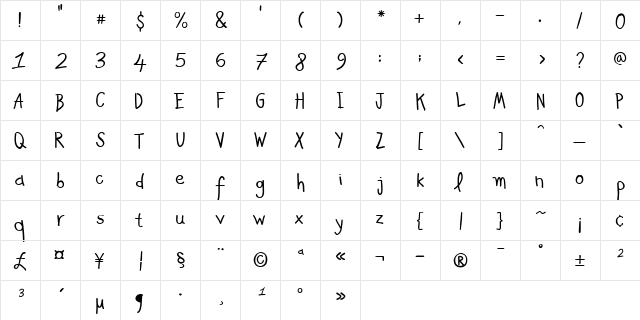
PF Kids Pro Grade Five Regular
Design Context for PF Kids Pro Grade Five Typeface
PF Kids Pro Grade Five has an approachable, lighthearted character — its loose, expressive forms are well-suited to children's content, casual branding, and fun-first design.
Well-suited to food and beverage brands with personality, educational materials, and fun-forward identities.
Font Pairing: Pairs well with a rounded or humanist sans for body copy, maintaining the friendly tone without relying on PF Kids Pro Grade Five to carry extended reading.
Pro Tip: Use PF Kids Pro Grade Five at larger display sizes where its expressive character can land. Pair with a clean, simple sans for body copy to maintain readability.